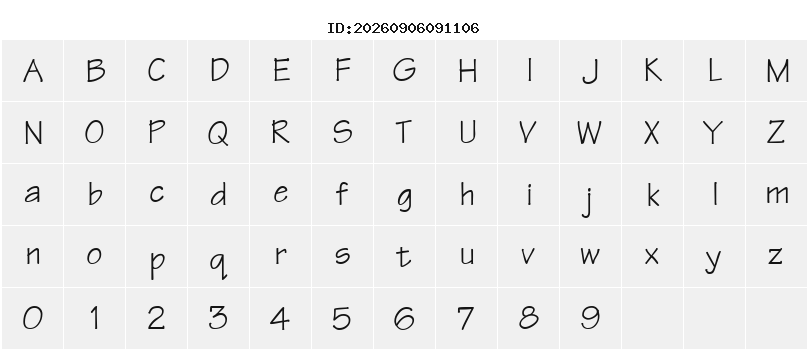
TechnicsDB Preview
• Font Name: TechnicsDB
• Full Font Name: TechnicsDB Italic
About TechnicsDB.ttf
TechnicsDB.ttf is a modern, elegant sans-serif font designed for ultimate readability and visual harmony. Perfect for branding, headlines, web design, and print materials.